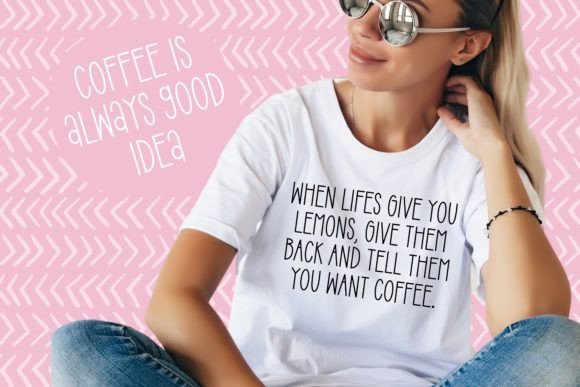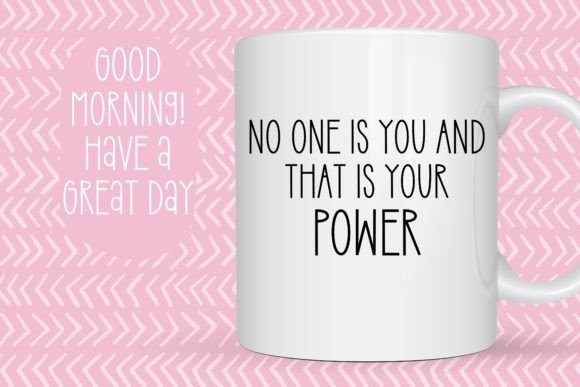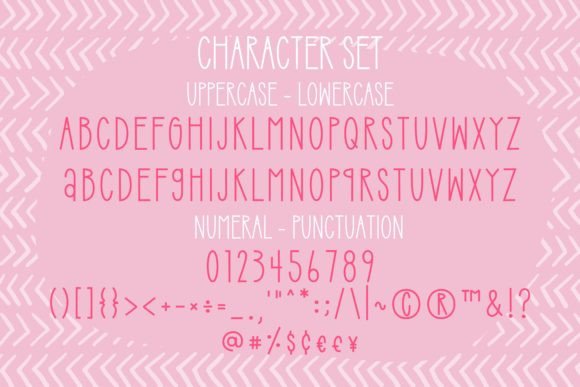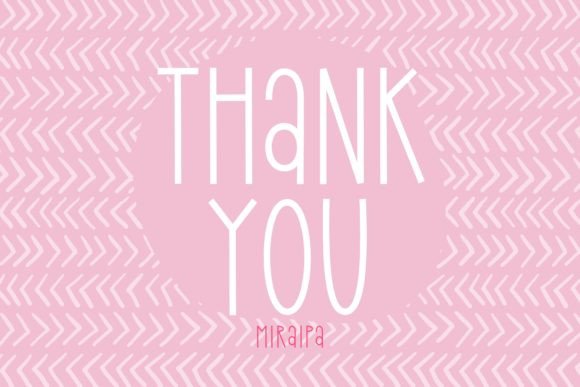
Introducing Friendship Font: The Perfect Addition to Your Fun and Playful Designs
Are you tired of using the same old fonts in your designs? Look no further than Friendship Font, a charming and whimsical sans serif font that’s perfect for adding a friendly touch to your projects. Designed in a cute and playful style, Friendship Font is sure to bring a smile to your audience’s faces.
What Makes Friendship Font So Special?
Friendship Font is a unique and quirky font that’s designed to add a touch of fun and personality to your designs. Its sans serif style gives it a clean and modern look, while its playful and charming vibe makes it perfect for a wide range of projects. Whether you’re working on Easter, back to school, wedding, or Christmas designs, Friendship Font is the perfect choice.
Perfect for Fun and Creative Projects
Friendship Font is incredibly versatile and can be used in a variety of fun and creative projects. Here are some ideas to get you started:
- Easter and Christmas decorations and invitations
- Back to school and party decorations
- Wedding and birthday invitations
- Posters and flyers for fun events
- Blogs and social media posts
- Clothing and accessory designs for kids and adults
- Child-related designs, such as nursery decor and kids’ party themes
Why Designers and Crafters Love Friendship Font
Friendship Font has quickly become a favorite among designers and crafters, and for good reason. Here are just a few reasons why:
- Easy to read: Despite its playful style, Friendship Font is easy to read, even in small sizes.
- Versatile: Friendship Font can be used in a wide range of projects, from digital designs to print materials.
- Unique: Friendship Font has a unique and quirky style that’s sure to make your designs stand out.
- Fun: Let’s face it – Friendship Font is just plain fun! It’s the perfect choice for designers and crafters who want to add a little personality to their work.
How to Use Friendship Font in Your Designs
Using Friendship Font in your designs is easy. Here are a few tips to get you started:
- Pair it with other fonts: Friendship Font pairs well with a variety of other fonts, including serif fonts and script fonts.
- Experiment with colors: Friendship Font looks great in a variety of colors, from bright and bold to pastel and soft.
- Use it in combination with graphics: Friendship Font looks great when used in combination with graphics and illustrations.
If you’re looking for a font that’s fun, playful, and charming, look no further than Friendship Font. With its unique and quirky style, Friendship Font is perfect for designers and crafters who want to add a little personality to their work. Whether you’re working on Easter, back to school, wedding, or Christmas designs, Friendship Font is the perfect choice. So why wait? Download Friendship Font today and start adding a friendly touch to your designs!